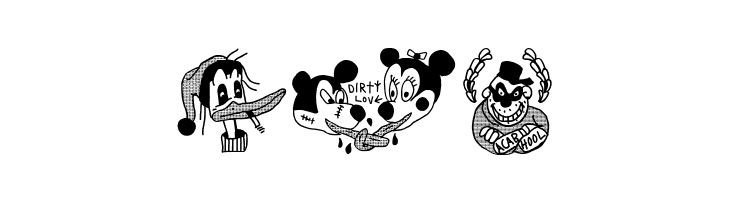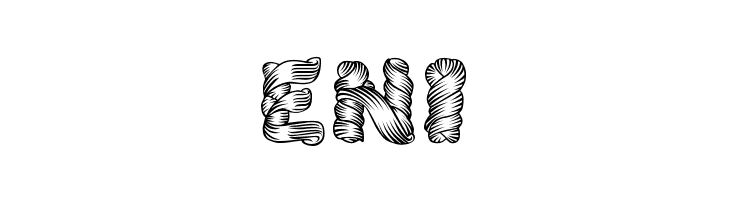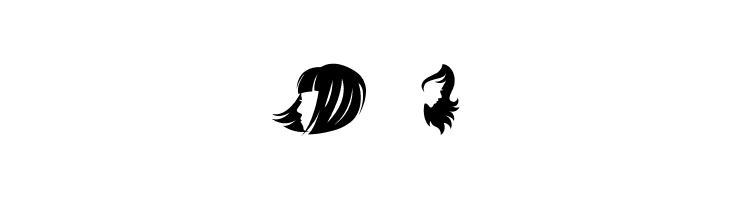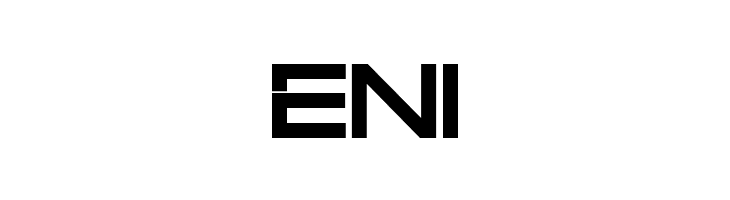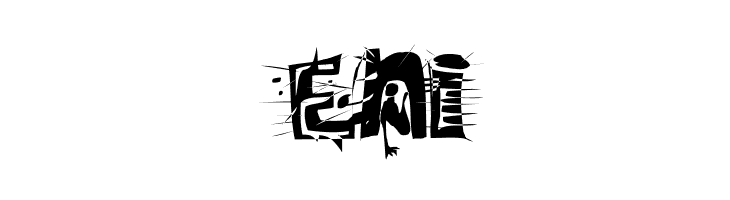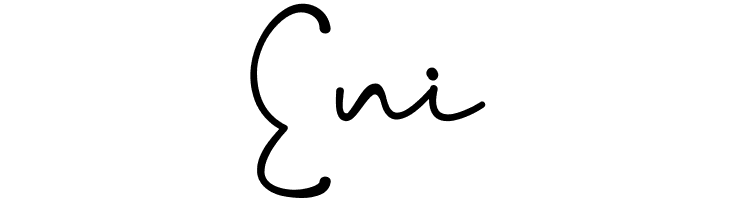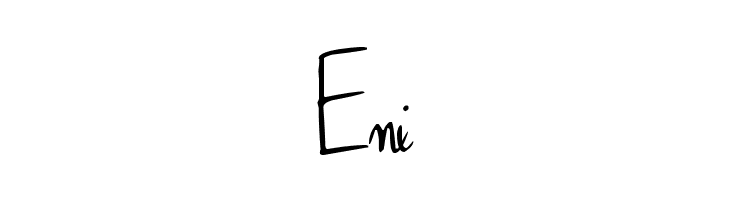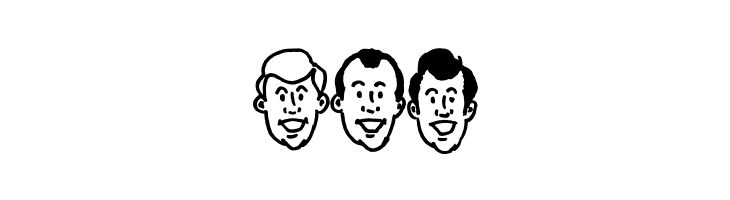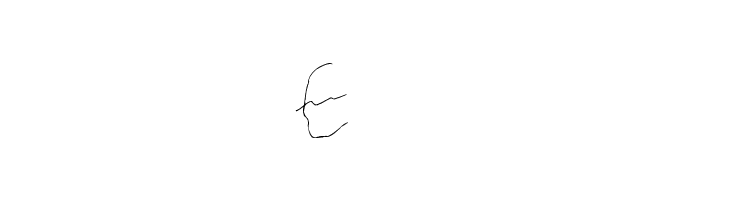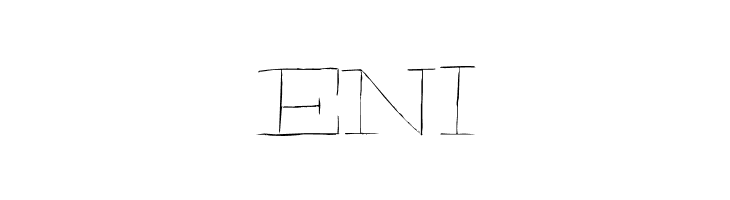
A modern, italicized font with a futuristic and geometric design.
A modern, geometric font with a futuristic and structured design.
A sleek, modern font with thin, elongated characters and a futuristic style.
A modern, geometric font with thin, sleek lines and minimalist design.
A pixelated, retro-style font with a digital, blocky appearance.
A playful, whimsical handwritten font with fluid strokes and a dynamic feel.
A playful, handwritten font with a bold and artistic style.
A playful, handwritten font with a personal and artistic flair.
A collection of cartoon character illustrations with a vintage animation style.
A casual, handwritten font with fluid and dynamic strokes.
An elegant and flowing script font with ornate letterforms.
A bold, modern font with rounded strokes and a playful aesthetic.
A bold, distressed font with a grunge-like, hand-drawn appearance.
A playful and decorative font with high contrast and whimsical design.
A flowing, cursive font with elegant, connected strokes.
A bold, geometric font with angular shapes and clean lines.
A decorative font with cartoon faces representing each character.
A playful, decorative font with comb-like horizontal lines extending from each character.
A bold, italic font with dynamic horizontal lines for a sense of movement.
A bold, chaotic display font with a punk rock aesthetic and distressed look.
A whimsical, hand-drawn font with thin, elongated strokes and a playful style.
A bold, brush-style font with dynamic, hand-drawn strokes.
A whimsical, playful font with cloud-like textures and bow accents.
A bold, expressive brush-style font with dynamic, handcrafted strokes.
Ornamental font featuring diverse hairstyle silhouettes.
A decorative font with a textured, intertwined ribbon-like design.
A modern blackletter font with sharp, angular lines and intricate detailing.
A delicate, hairline font with a modern and artistic style.